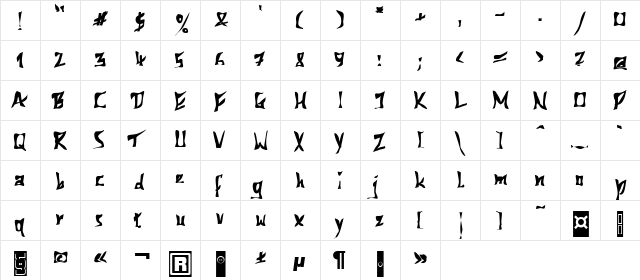
a_ConceptoTitulNrCmGr Regular
Design Context for a_ConceptoTitulNrCmGr Typeface
a_ConceptoTitulNrCmGr is a composed and adaptable typeface that performs quietly and consistently across a wide range of design contexts.